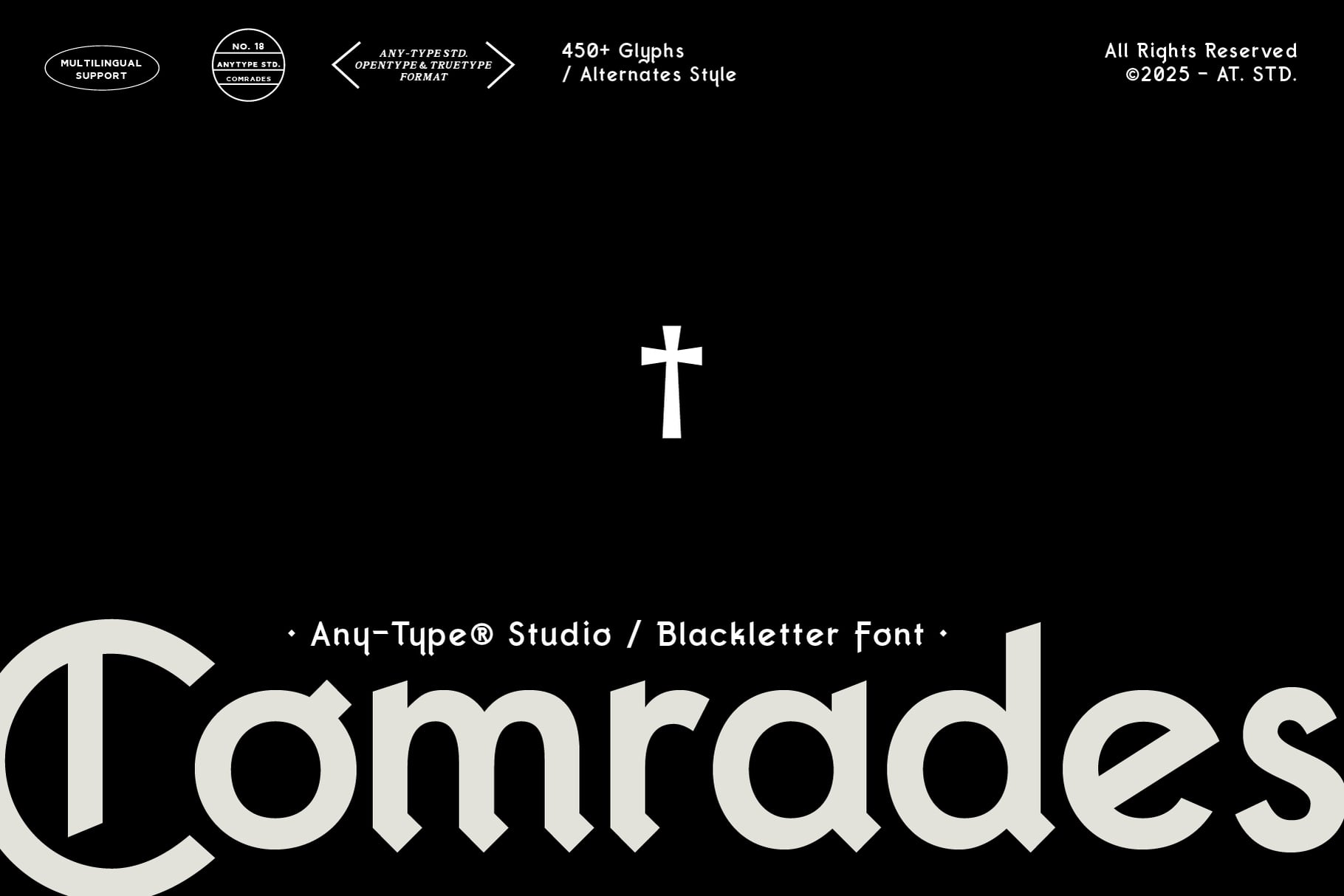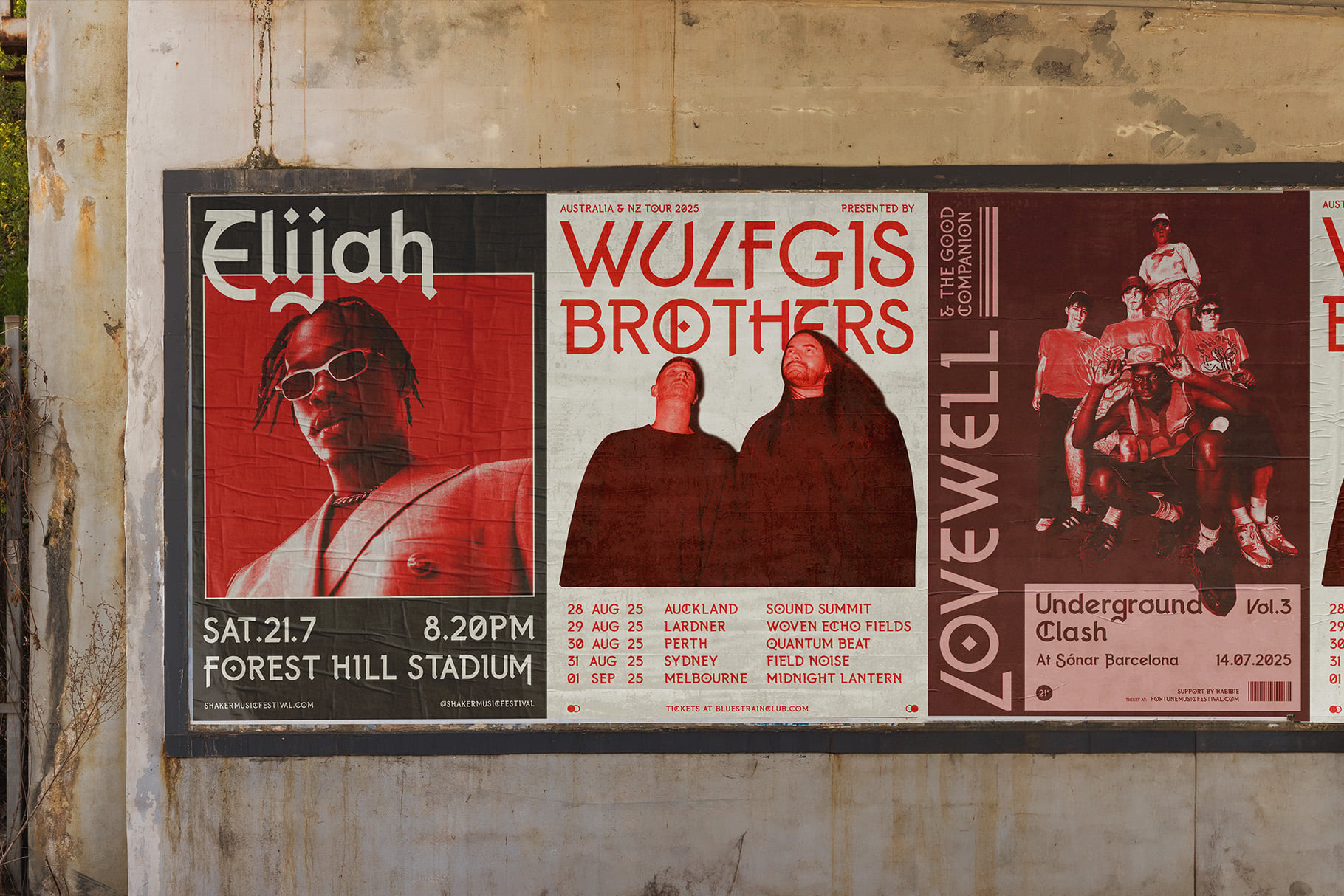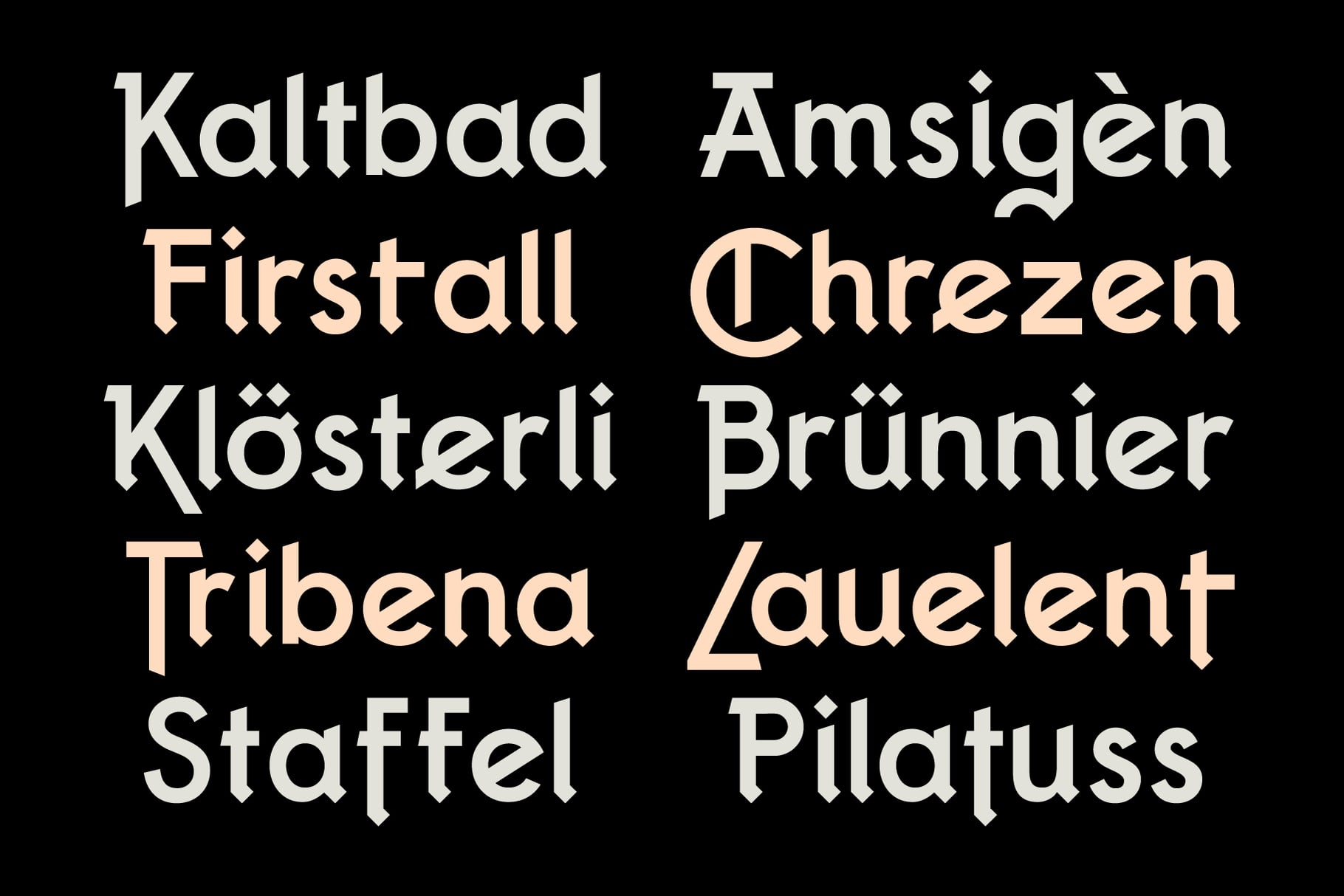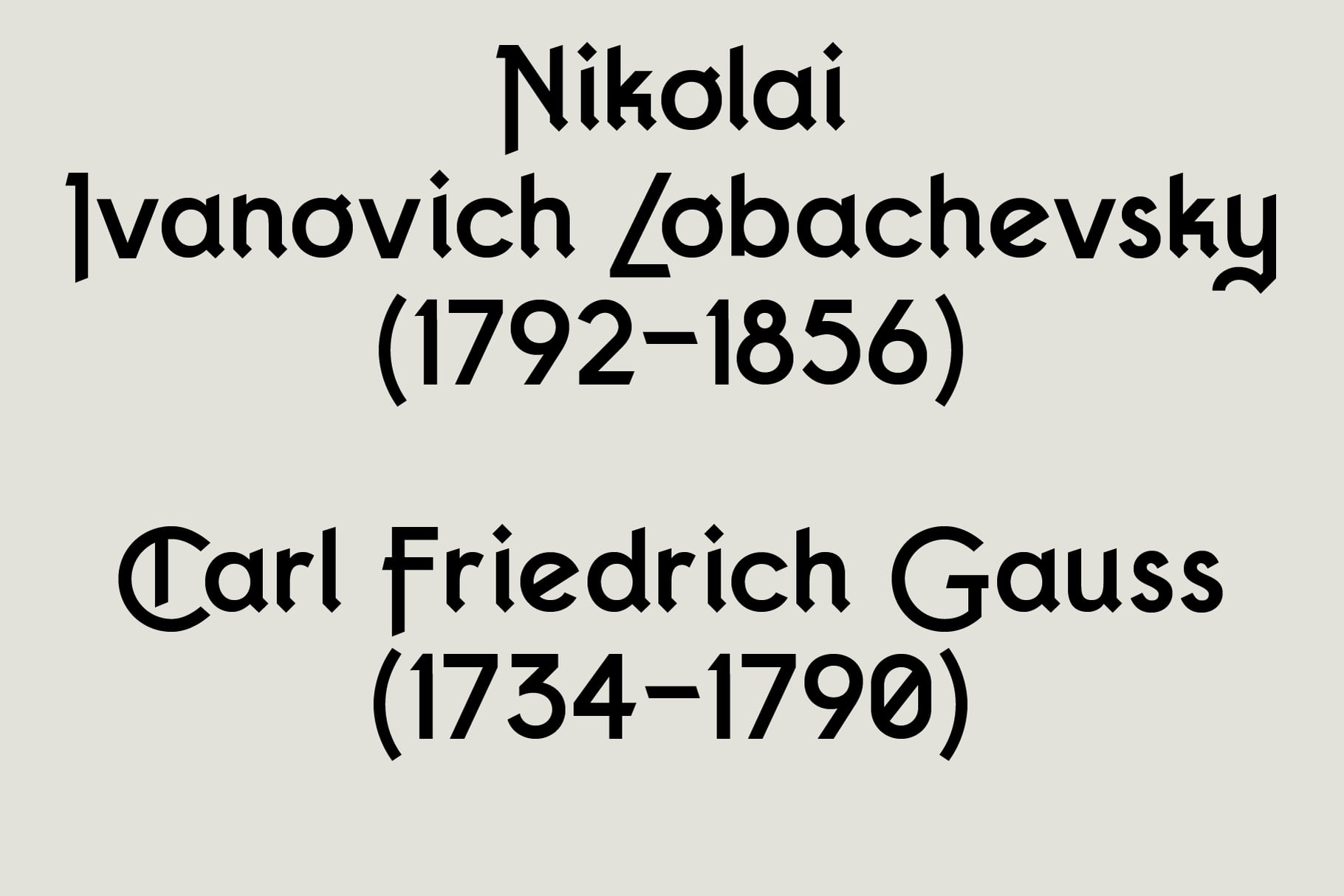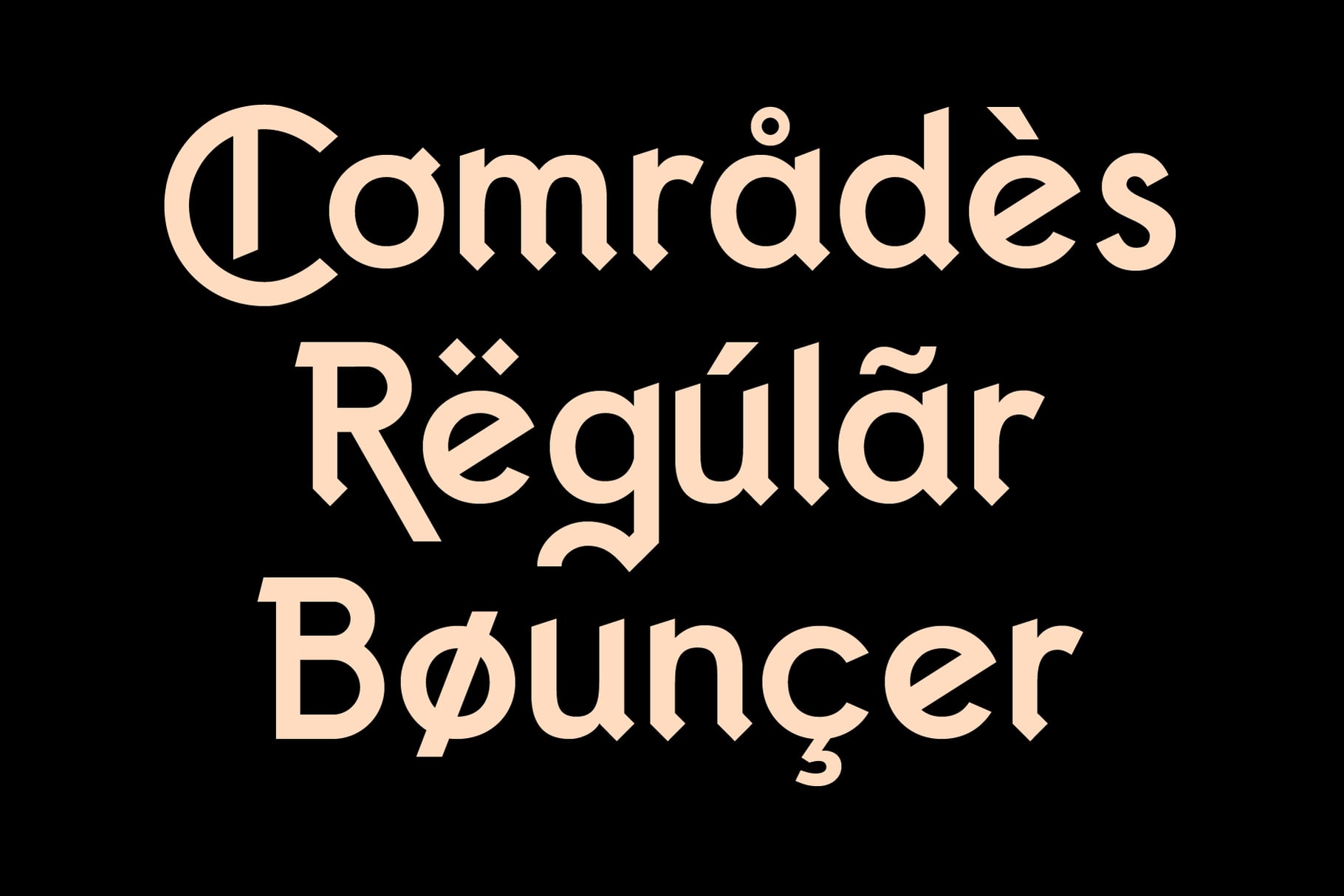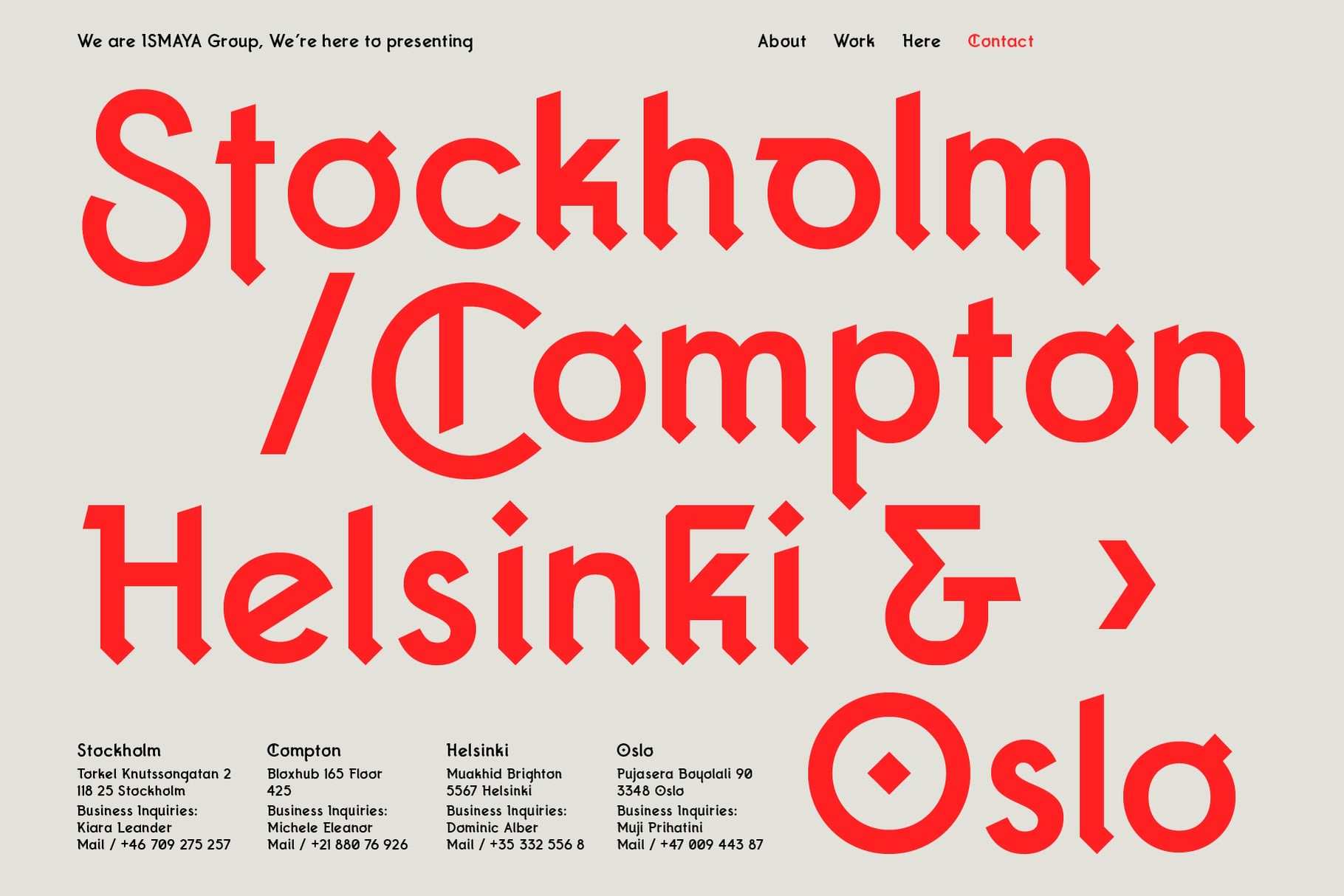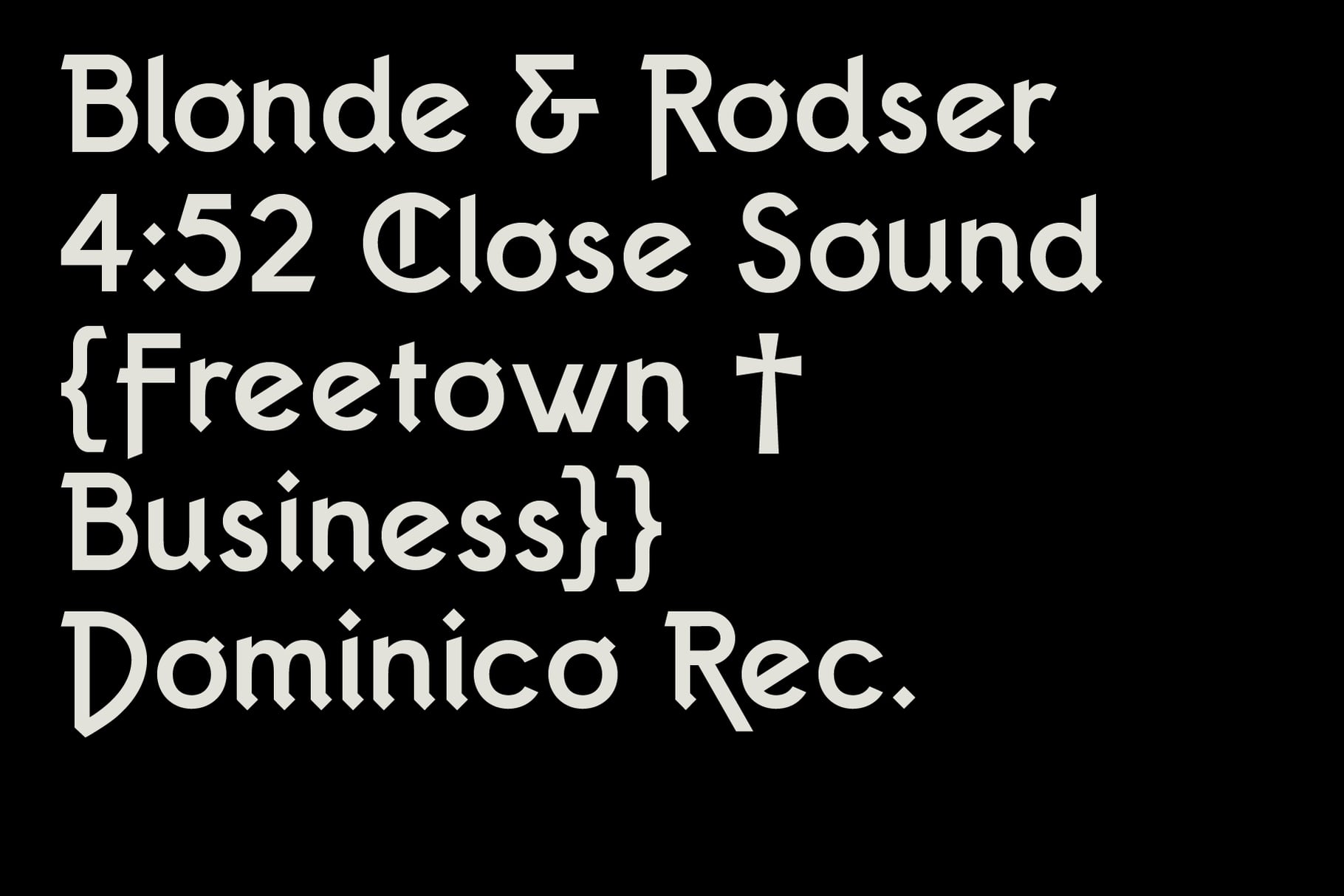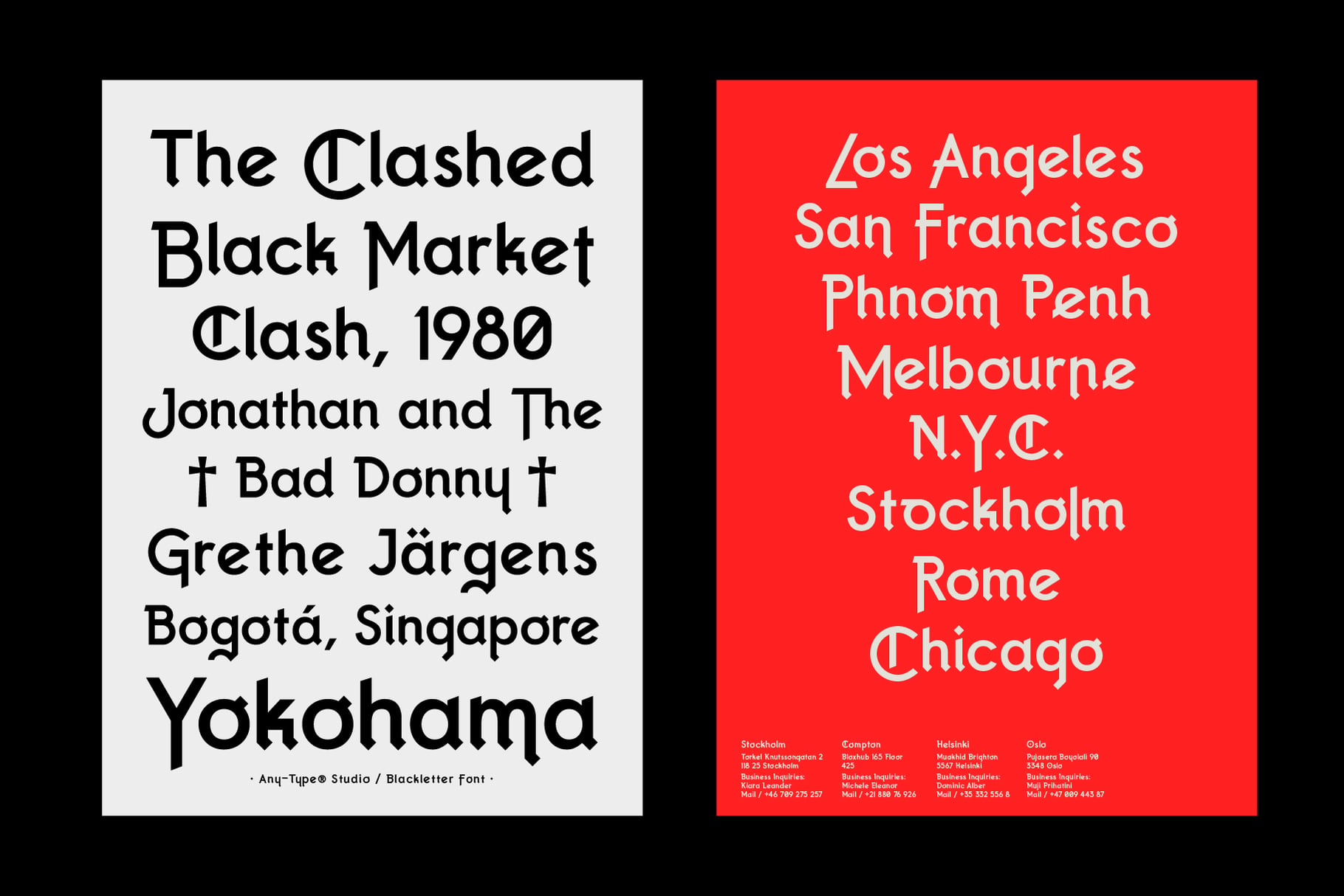
Comrades is a bold, stylized blackletter-inspired display font from Any-Type® Studio, designed to blend tradition with modernism. Its unique geometric shapes and sharp edges..evoke a sense of strength and solidarity, while the smooth, rounded elements maintain readability and versatility. Ideal for branding, posters, editorial design, album covers, and apparel, Comrades is especially suited for themes involving unity, activism, or historical-modern contrast.
With multilingual support, alternate characters, and over 450 glyphs, this typeface empowers designers to create bold, expressive compositions that command attention.